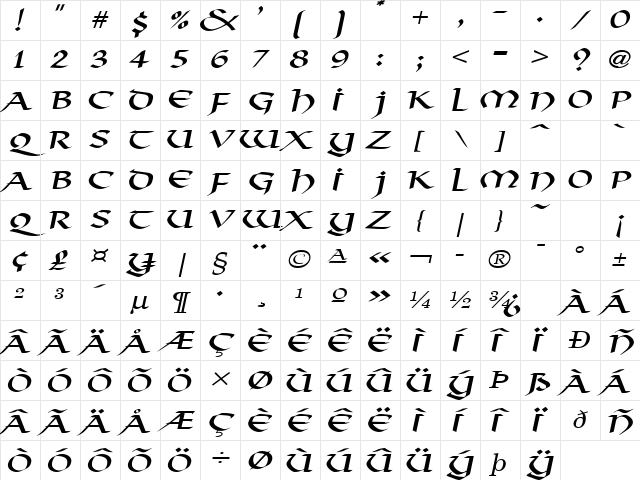
Valhalla Wide Italic
Design Context for Valhalla Wide
Valhalla Wide is a composed and adaptable typeface that performs quietly and consistently across a wide range of design contexts. The slanted form adds forward momentum and visual energy.